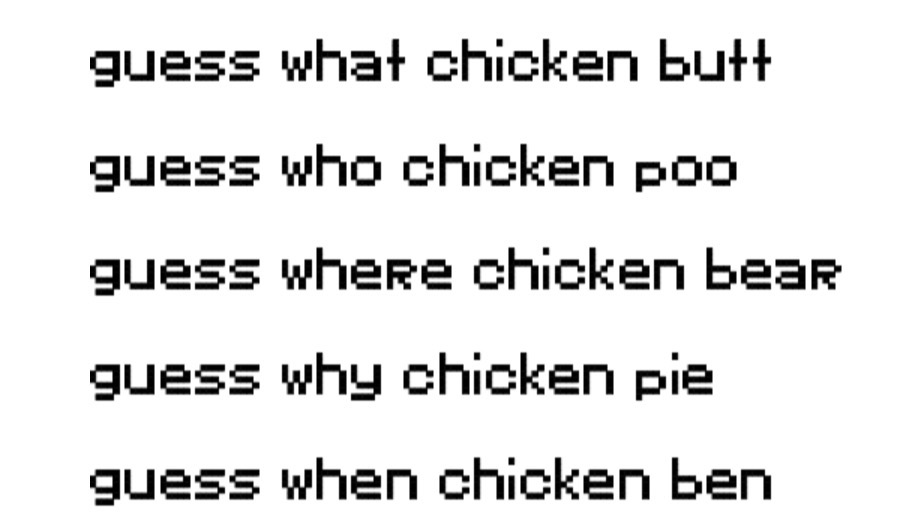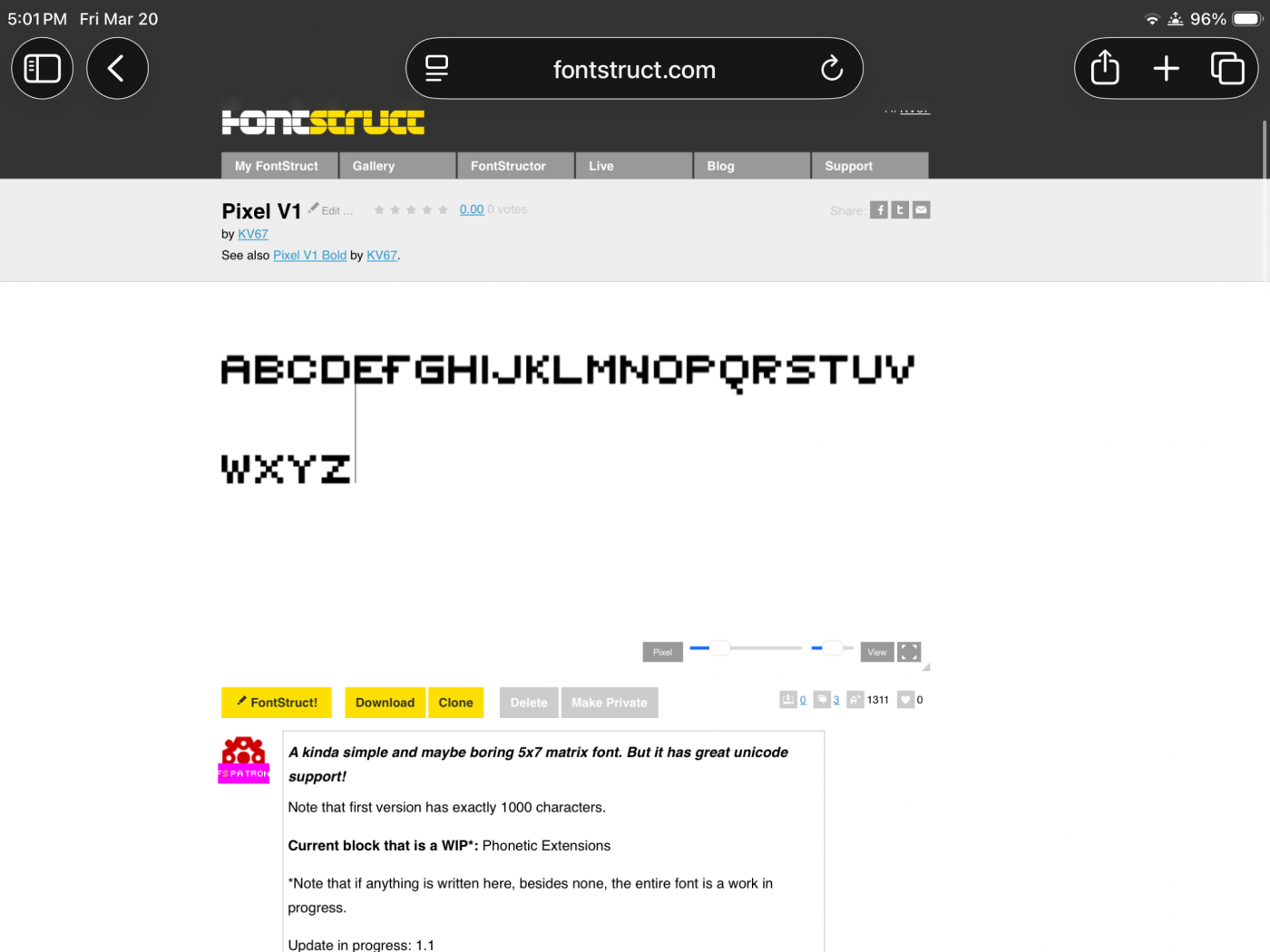
• A kinda simple and maybe boring 5x7 matrix font. But it has great unicode support!
Note that first version has exactly 1000 characters.
Current block that is a WIP: More blocks coming sooon
Update in progress: More coming soon
Spoiler alert: This is the new definition of unicode.
I thought this would be laggy, except it isn’t, even though it is unicode.
Be nice to this font, it took three months to complete.
Note that some lowercase letters' peaks are not as high as other lowercase letters. I mean the small ones.
I may be wrong about the peaks of small lowercase letters not being as tall.
I mean high.
3/20/2026 ғɪɴᴀᴀʟʏ ғɪɴɪsʜᴇᴅ sᴍᴀʟʟ ᴄᴀᴘs. ʟᴏᴏᴋs ᴍᴀɢɴɪғɪᴄᴇɴᴛ!
ғᴇᴇʟ ғʀᴇᴇ ᴛᴏ ᴄᴏᴘʏ ᴘᴀsᴛᴇ ɪᴛ.
ғɪɴᴀʟʟʏ*
there is a different small cap F in latin extended-c
Latin Extended-D he meant.
yes
the Latin extended D one was not on my keyboard.
sorry i’m one month late on replying. Actually More Than One Month.
@KV67 doesn't matter if it isn't on your keyboard
@farts apparently text changers don't like latin extended-d for some reason (just in case, here's a copy paste of small caps F and a correct small caps Q: ꜰꞯ)
That ɪs єησυgн.